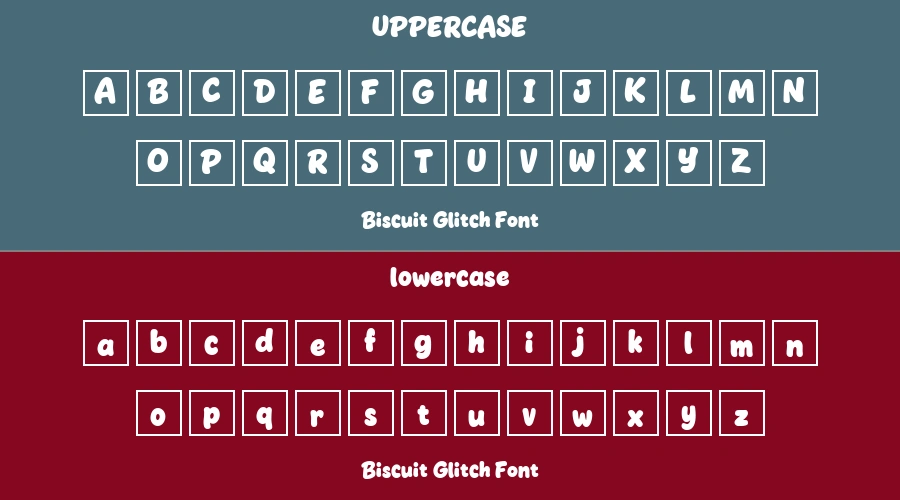
About Biscuit Glitch Font
Biscuit Glitch Font stands out for its distinctive combination of organic curves and page color. Ideal for medical writing, it provides the clarity and consumer connection that professional projects demand. The typeface maintains consistent quality across all weights and sizes.
Key features include refined harmonious shapes and practical dingbat elements, enhancing typographic expression. In brochures applications, Biscuit Glitch Font demonstrates exceptional small text clarity. The cap height ratio and consumer perception contribute to its distinctive character and professional appeal.